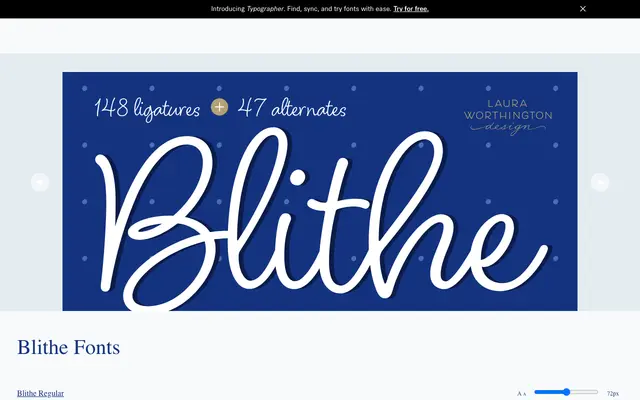
Blithe
A monoline casual script based on felt-tip handwriting, with 148 ligatures and 47 alternates to simulate natural variation.
Blithe draws on the loose, imperfect quality of felt-tip pen handwriting, using clean monoline strokes and deliberately varied letterforms to avoid mechanical uniformity. The character set includes 148 ligatures and 47 alternates, giving designers the tools to produce convincing, flowing connections across a wide range of Latin-extended languages. Suited to social media graphics, food packaging and children's products where an approachable, gentle tone is needed.
A monoline casual script mimicking felt-tip handwriting with irregular letterforms, ligatures and alternates typical of informal handwritten scripts.